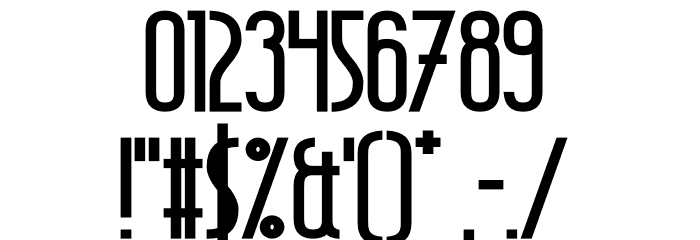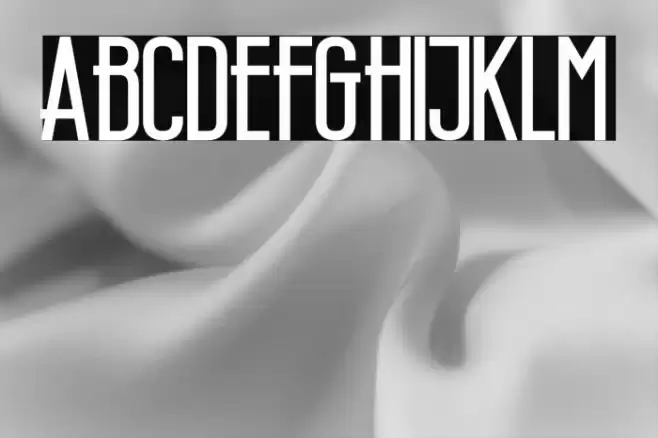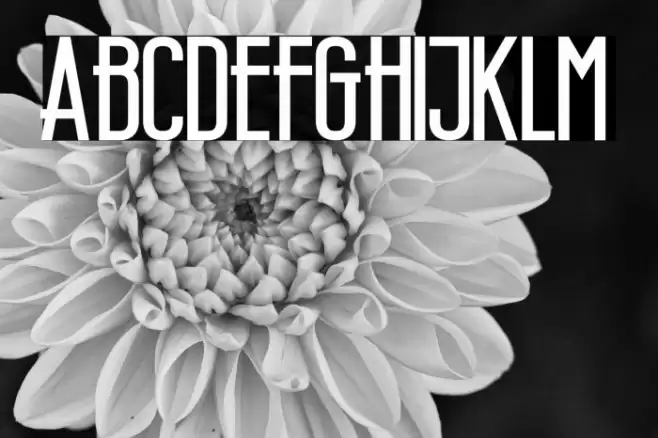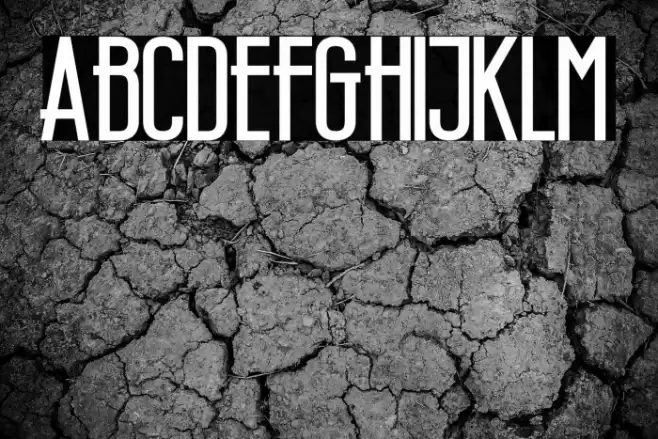
Wellcome Paradise Bold Font
This font features a bold and striking design with tall, narrow characters that create a strong visual impact. The uppercase letters are particularly elongated, giving the font a modern and sleek appearance. The characters are evenly spaced, maintaining a consistent rhythm across the text. The numbers and special characters are designed to match the boldness of the letters, ensuring a cohesive look throughout. The font's clean lines and geometric shapes make it suitable for a variety of design applications, from branding to editorial design.
A bold, modern font with tall, narrow characters and clean lines.
- Proposed Projects: Ideal for branding, headlines, posters, and editorial design where a strong visual impact is desired.